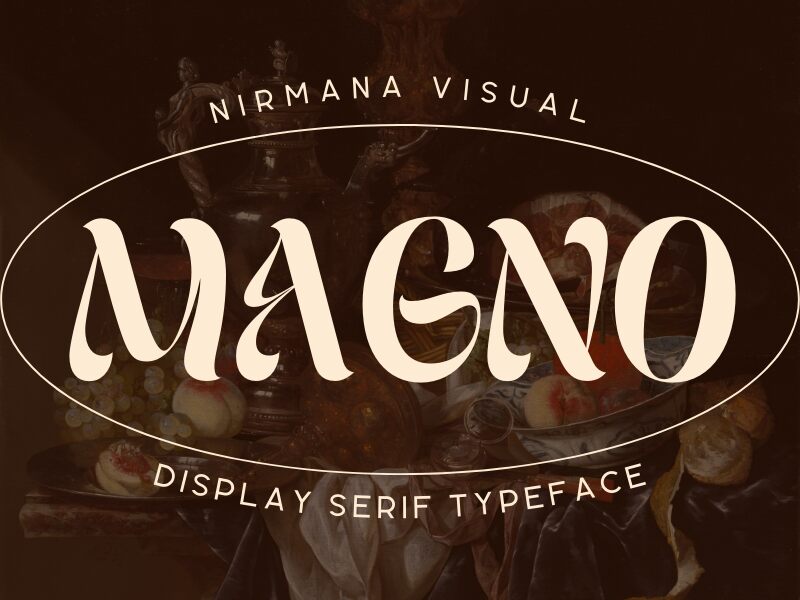
Magno, a retro display font designed by Nirmana Visual, brings a touch of nostalgia to your projects. With its semi-bold weight and unique vintage-inspired style, this font is perfect for creating eye-catching headlines, logos, posters, and packaging designs. Let Magno transport your audience back in time with its bold yet elegant appearance. From retro-themed websites to retro-themed events and promotions, this versatile font adds a timeless charm to any project. Embrace the past and stand out from the crowd with Magno's distinctive retro display typeface.